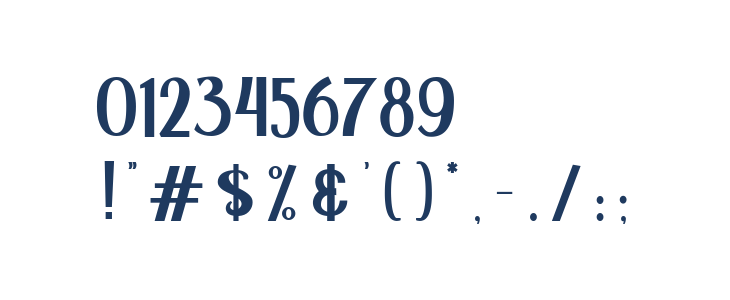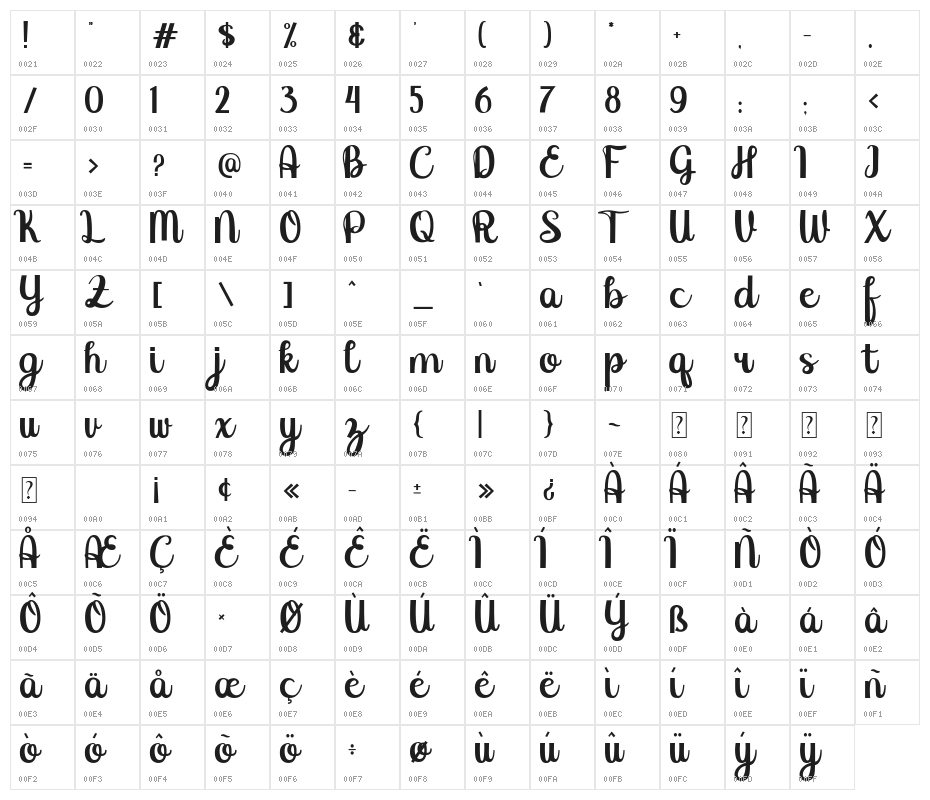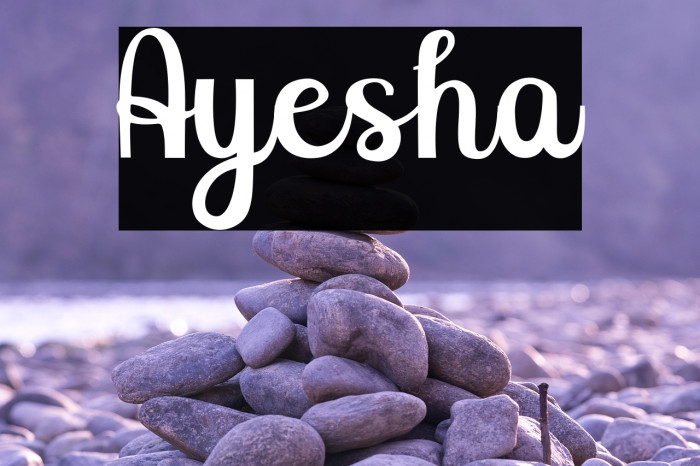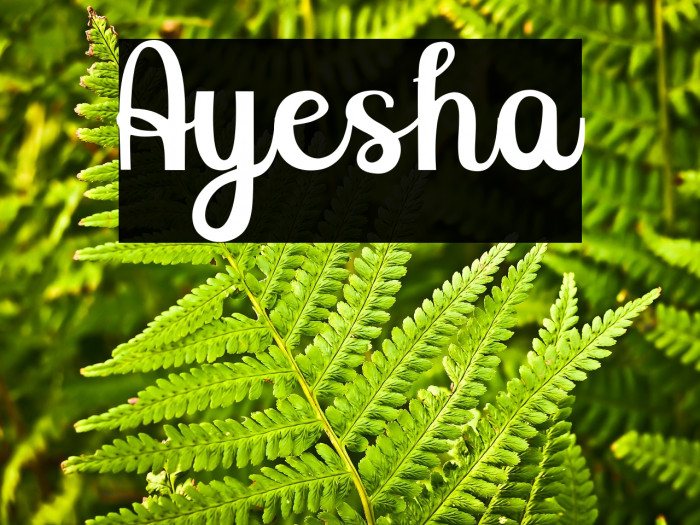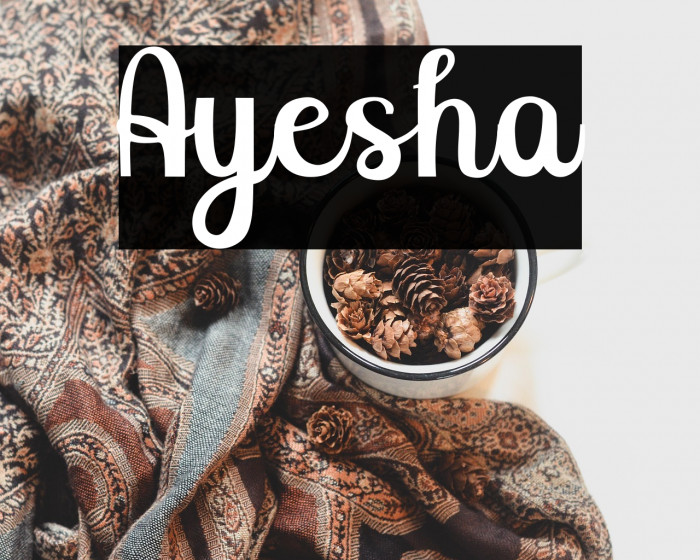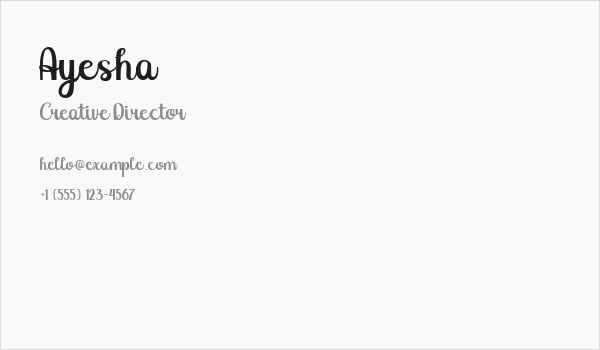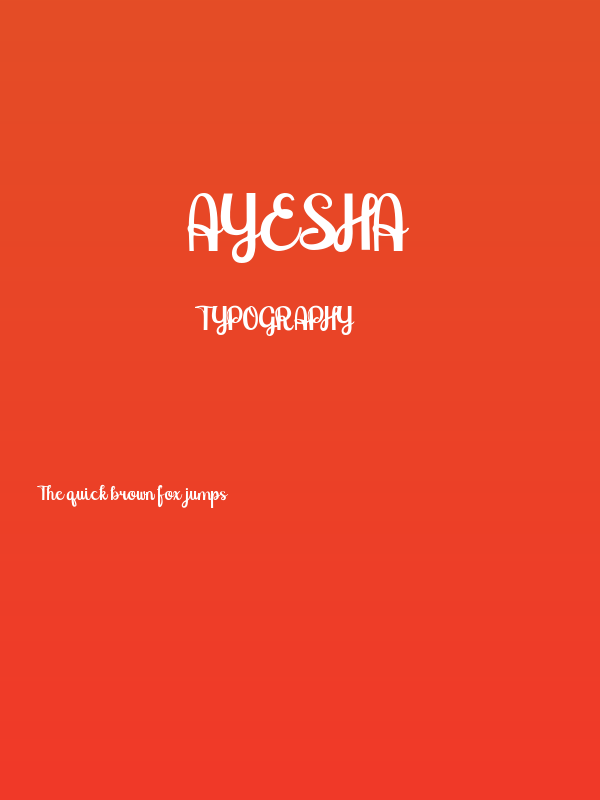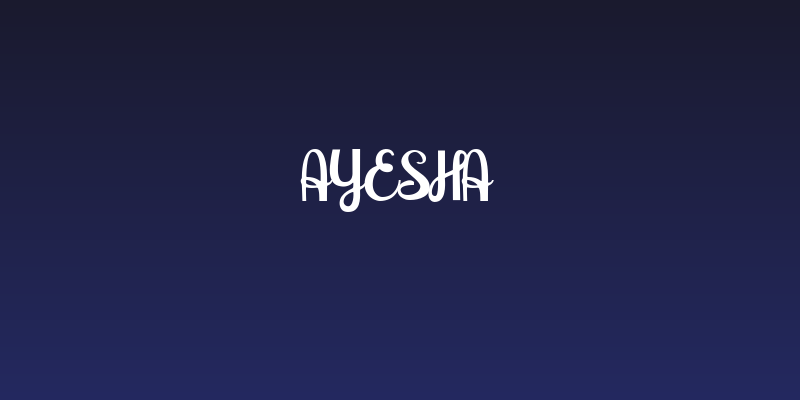
Ayesha Font
Ayesha Description
This font features a playful and whimsical script style, characterized by its flowing, interconnected letters. The uppercase letters have a bold presence with a slight slant, giving them a dynamic and lively appearance. The lowercase letters maintain a consistent flow, with loops and curves that enhance the font's decorative nature. The numerals are bold and rounded, complementing the overall style. Special characters are designed with the same playful touch, making them suitable for creative projects. The font's unique style makes it ideal for adding a personal and artistic touch to various designs.
Use CaseLogos, Headlines, Invitations
Proposed ProjectsIdeal for invitations, greeting cards, logos, and creative branding projects.